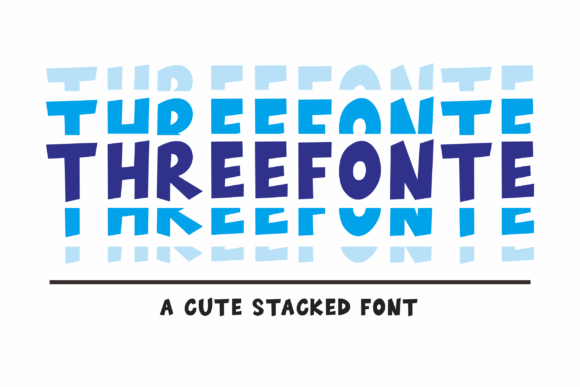
Embark on a typographic adventure with Threefonte, a display font that will ignite your imagination and awaken your inner artist. Inspired by the captivating world of comics, Threefonte exudes a charming playfulness that will bring a touch of whimsy to your designs.
Indulge in a symphony of visual delight as Threefonte's unique letterforms dance across your screen. Each stroke, curve, and serif is meticulously crafted to convey a sense of authenticity and nostalgia. Unleash your creativity and let Threefonte transport you to a realm where imagination knows no bounds.
With its friendly and inviting demeanor, Threefonte is the perfect font for capturing the attention of your audience. Its playful spirit will resonate with those who seek to evoke a sense of joy and lightheartedness in their designs. Whether you're creating eye-catching posters, enchanting packaging, or whimsical branding, Threefonte will add a touch of magic to your every project.
Crafted by the talented hands of Girinesia, Threefonte embodies the passion and artistry that goes into creating truly exceptional fonts. Its versatility extends beyond the world of comics, making it a captivating choice for a wide range of design applications.